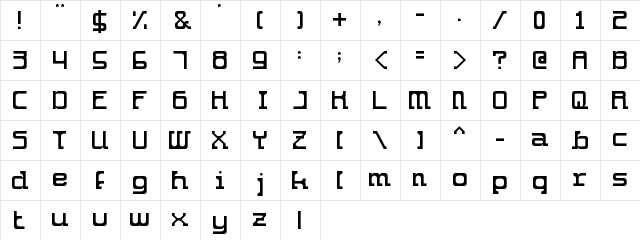
southwest Regular
Design Context for southwest Typeface
southwest takes a measured approach to typography — its balanced proportions and neutral character make it a reliable workhorse for both digital and print work.